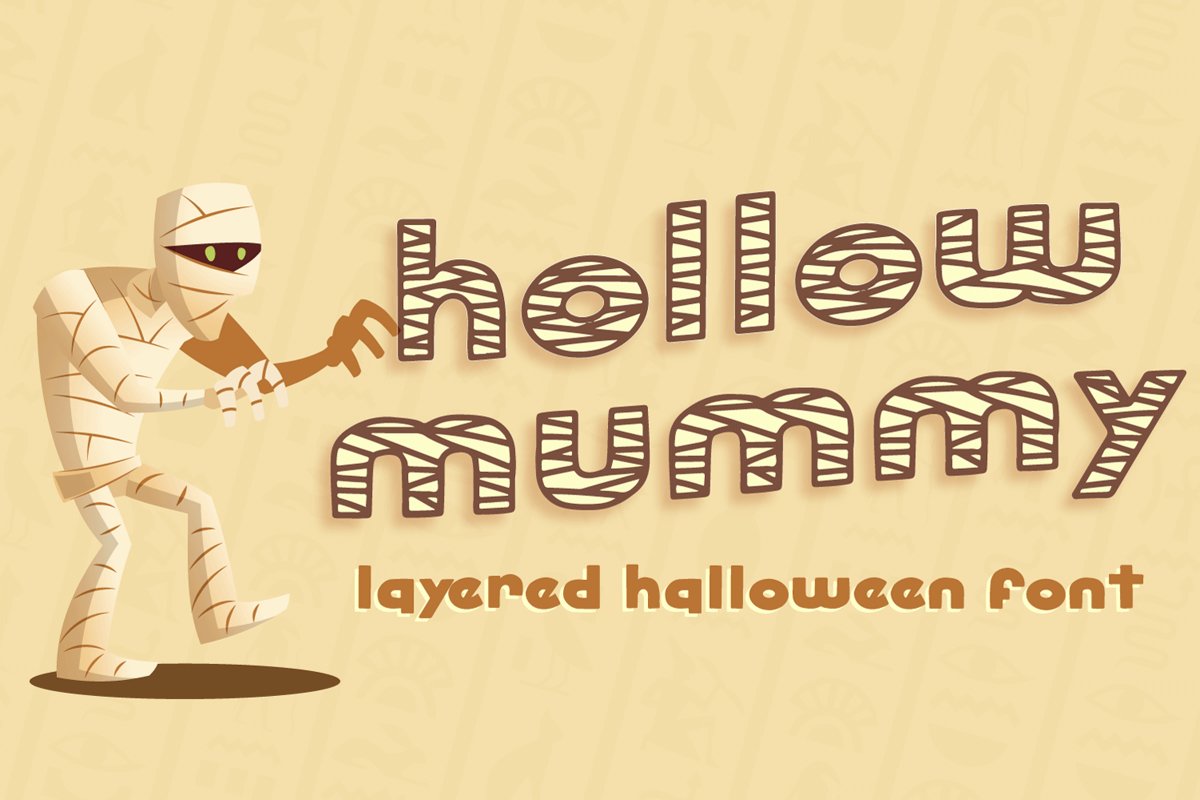
hollow mummy is layered Halloween font with display font of mummy that perfect for any halloween events and promotions.
hollow mummy is perfect for branding, logo, invitation, stationery, social media post, product packaging, merchandise,
blog design, game titles, cute style design, Book/Cover Title and more.